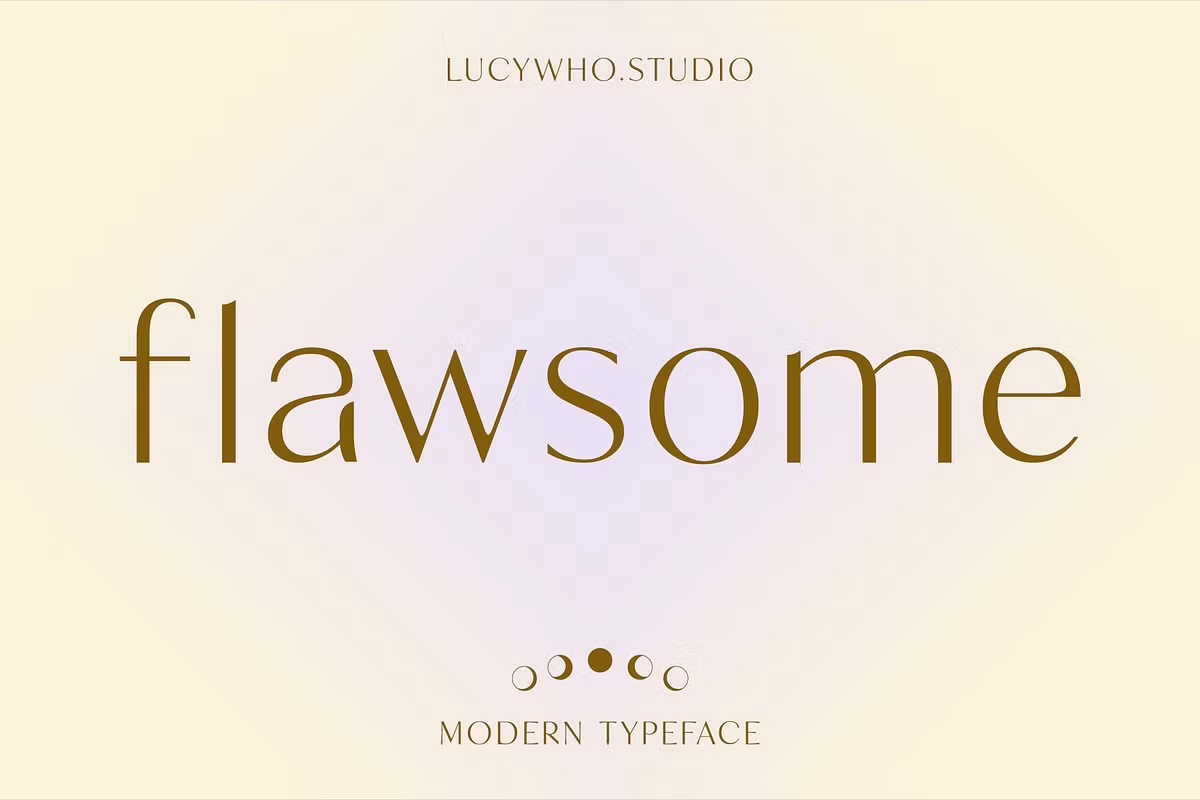
This sophisticated font is perfect for luxury fashion brands, high-end beauty products, premium jewelry marketing, elegant wedding stationery, upscale hospitality branding, refined editorial design, exclusive event invitations, and distinguished corporate communications. Its graceful character makes it ideal for projects requiring impeccable taste and flawless presentation.
Flawsome Elegant Typeface is exciting because it achieves perfection through deliberate imperfection, featuring carefully crafted letterforms that celebrate authentic beauty over artificial perfection. The font combines classical elegance with contemporary confidence, creating characters that feel both timeless and refreshingly modern. Its sophisticated approach to typography recognizes that true elegance comes from embracing unique character rather than sterile uniformity.
The Flawsome Elegant Typeface family typically includes multiple weights from light to bold, along with italic variations and refined character sets. Many versions feature stylistic alternates, elegant ligatures, and sophisticated OpenType features that enhance its luxury appeal and typographic flexibility.
Whether you're developing premium brand identities, luxury marketing campaigns, or sophisticated editorial projects, Flawsome Elegant Typeface Free Download provides authentic elegance with contemporary relevance. This typeface transforms standard communications into distinguished statements that resonate with discerning audiences who appreciate genuine sophistication over superficial polish. Its distinctive character adds immediate prestige and authenticity to any project while maintaining exceptional functionality, making it an essential resource for professionals who understand that Flawsome Elegant Typeface Free Download represents the perfect balance of refinement and authenticity in luxury design.